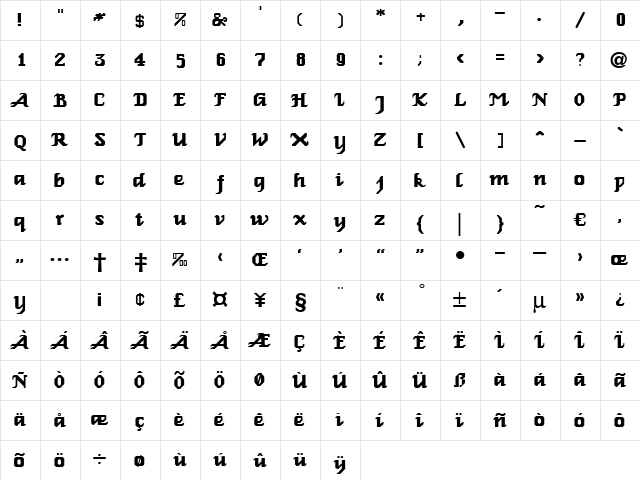
Hohenstaufen Regular
Design Context for Hohenstaufen Typeface
Hohenstaufen takes a measured approach to typography — its balanced proportions and neutral character make it a reliable workhorse for both digital and print work.